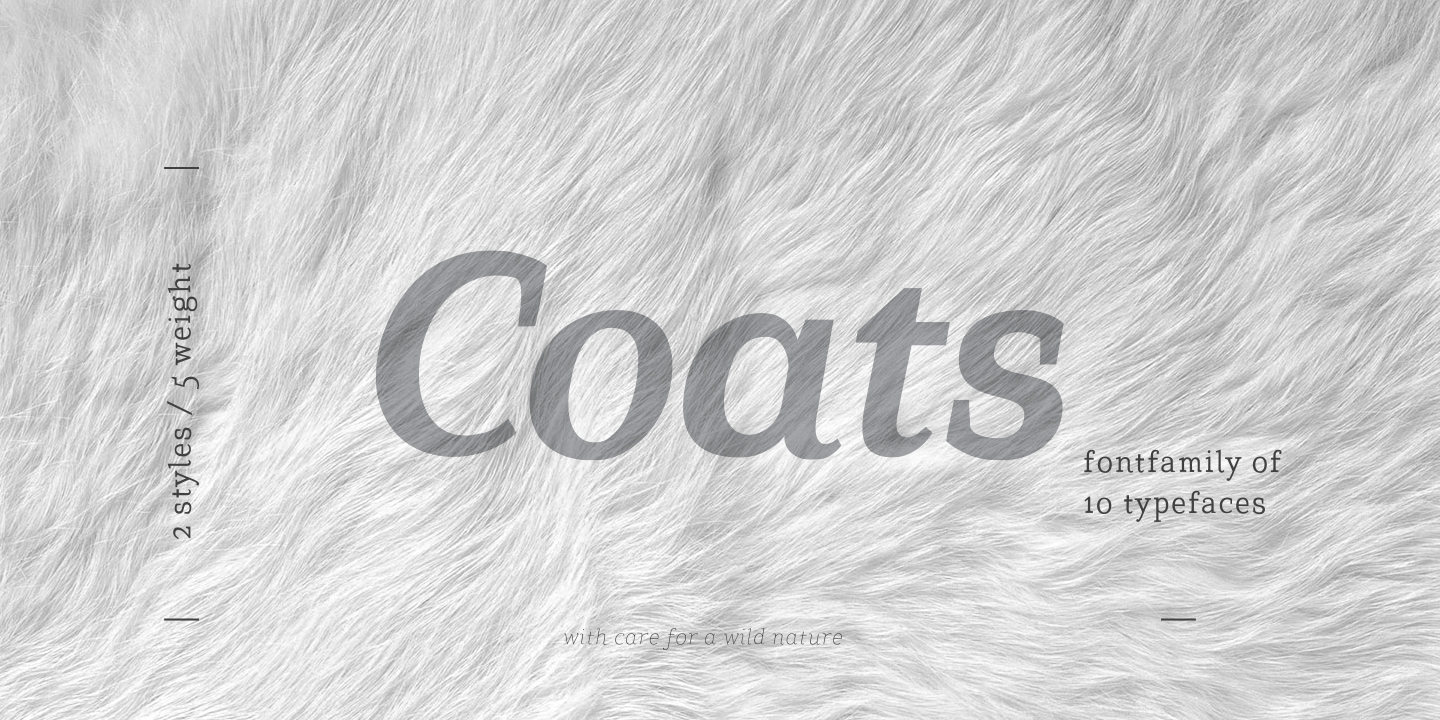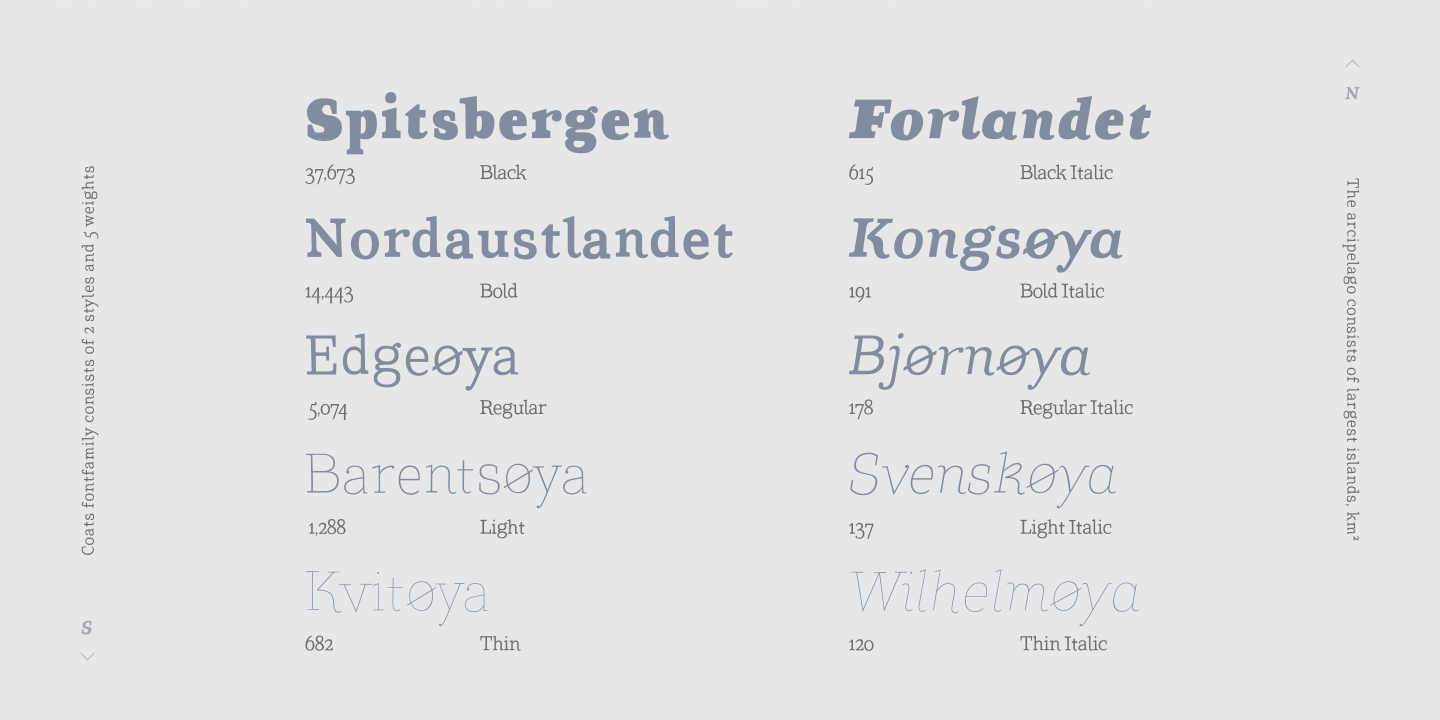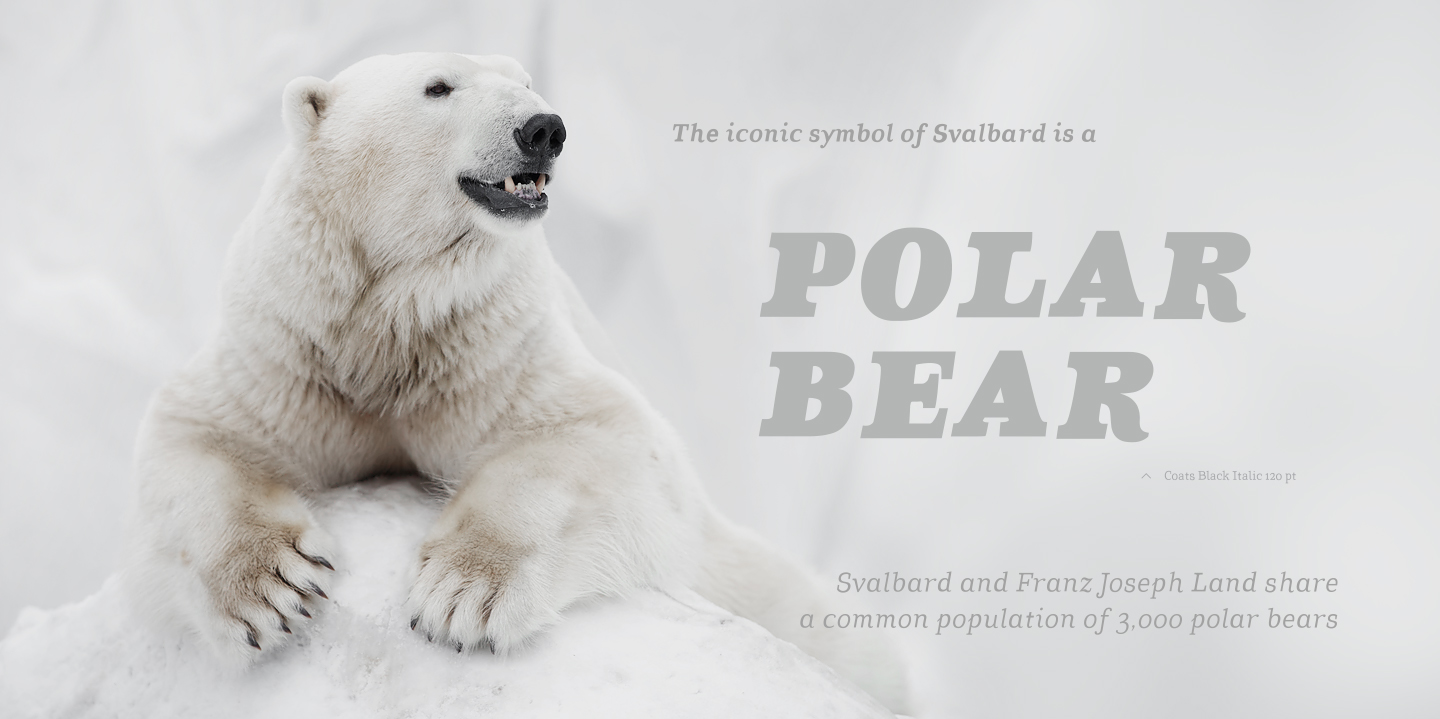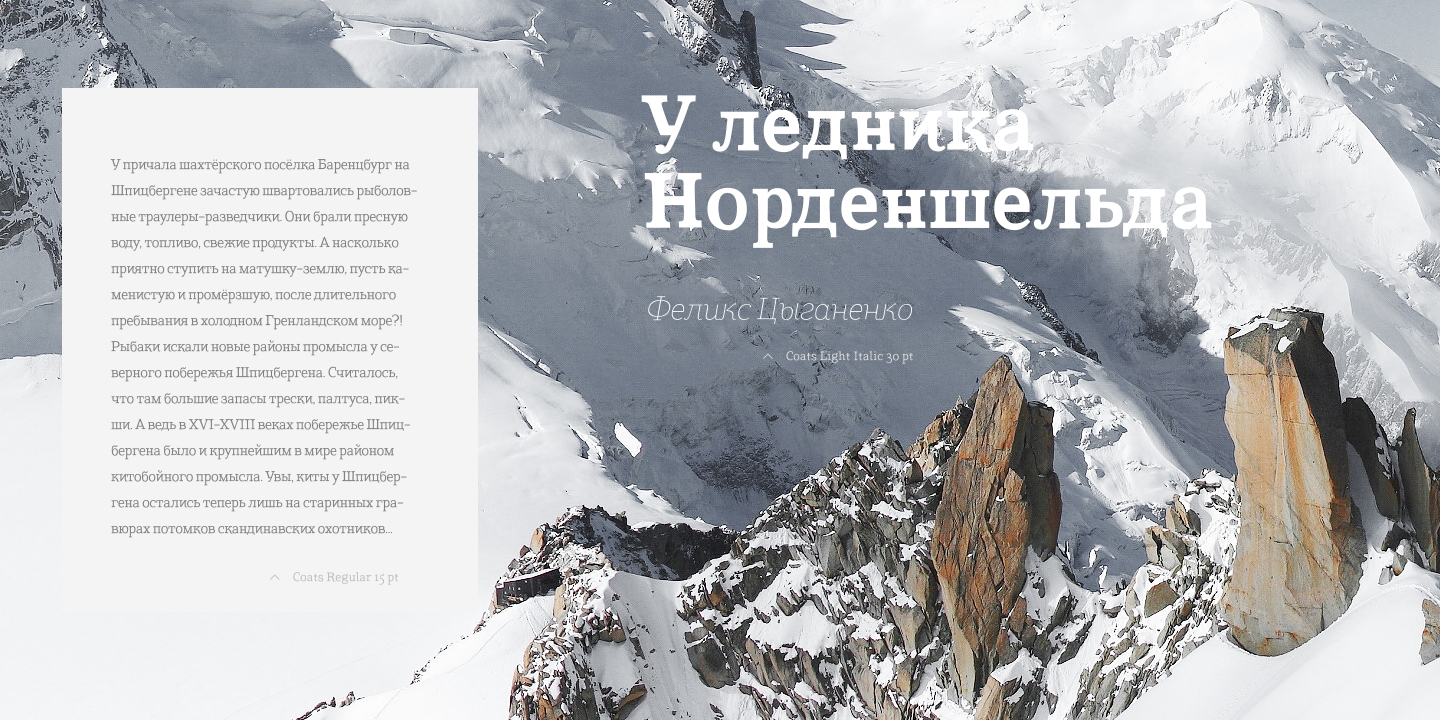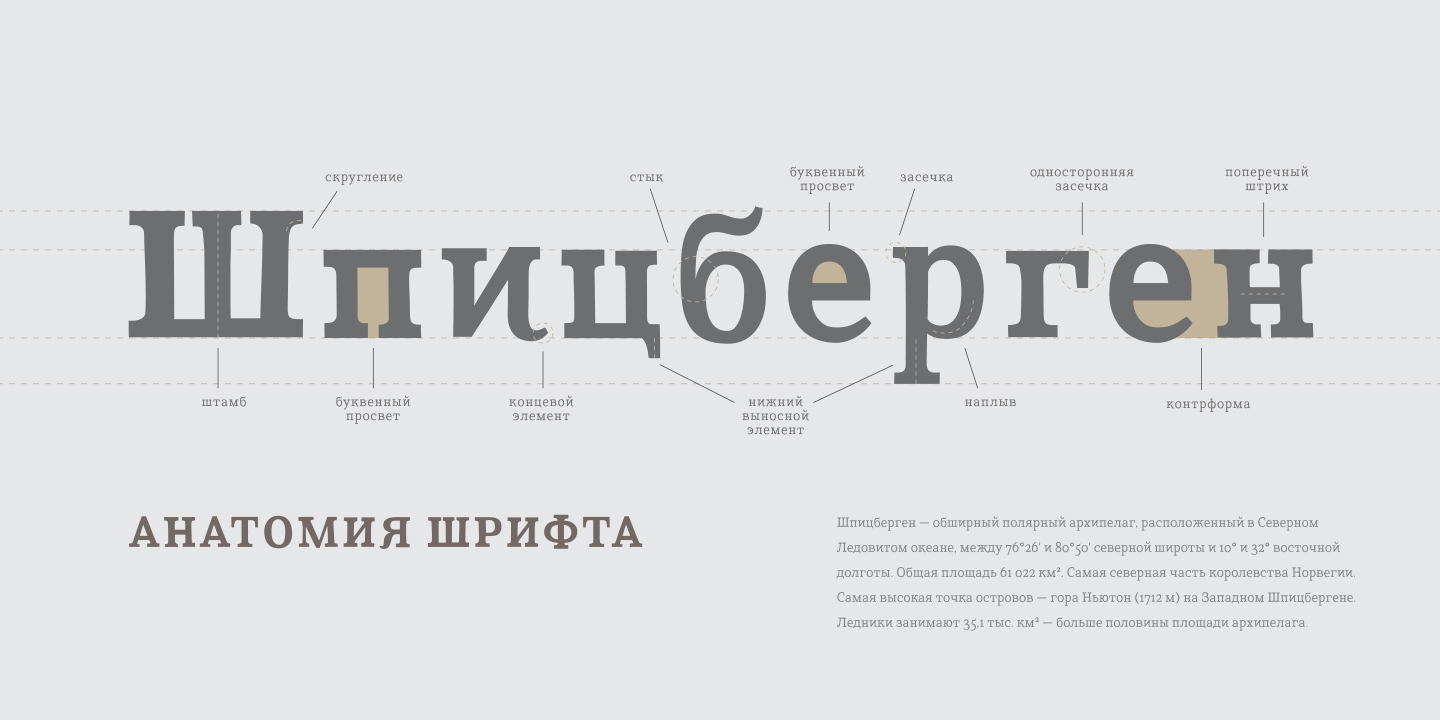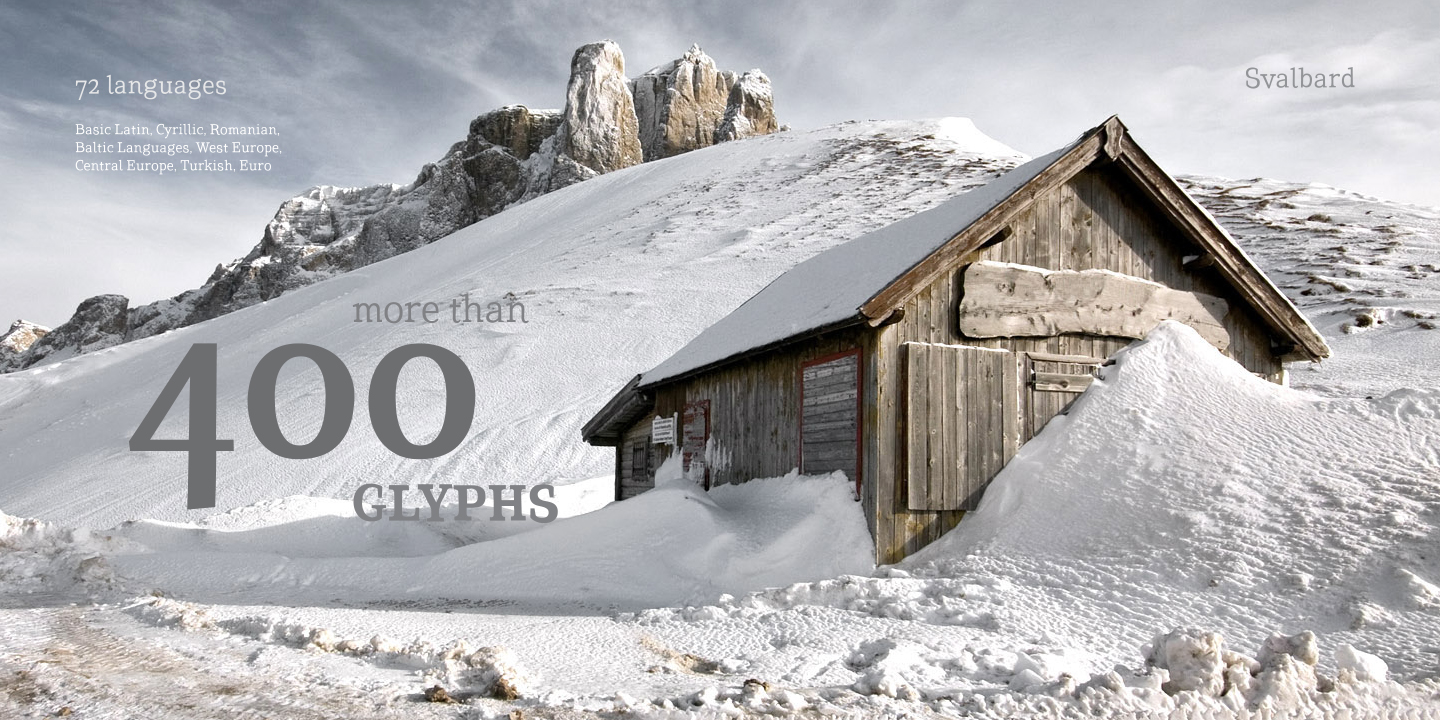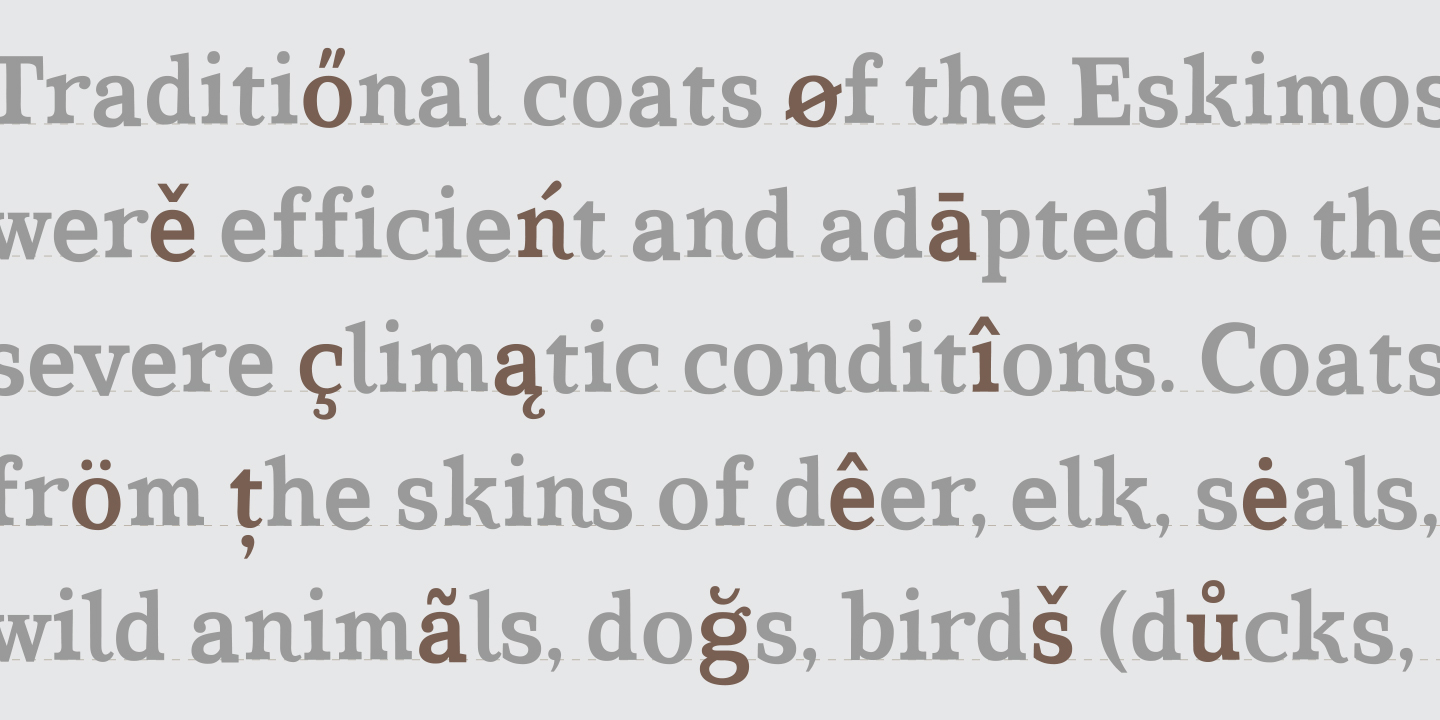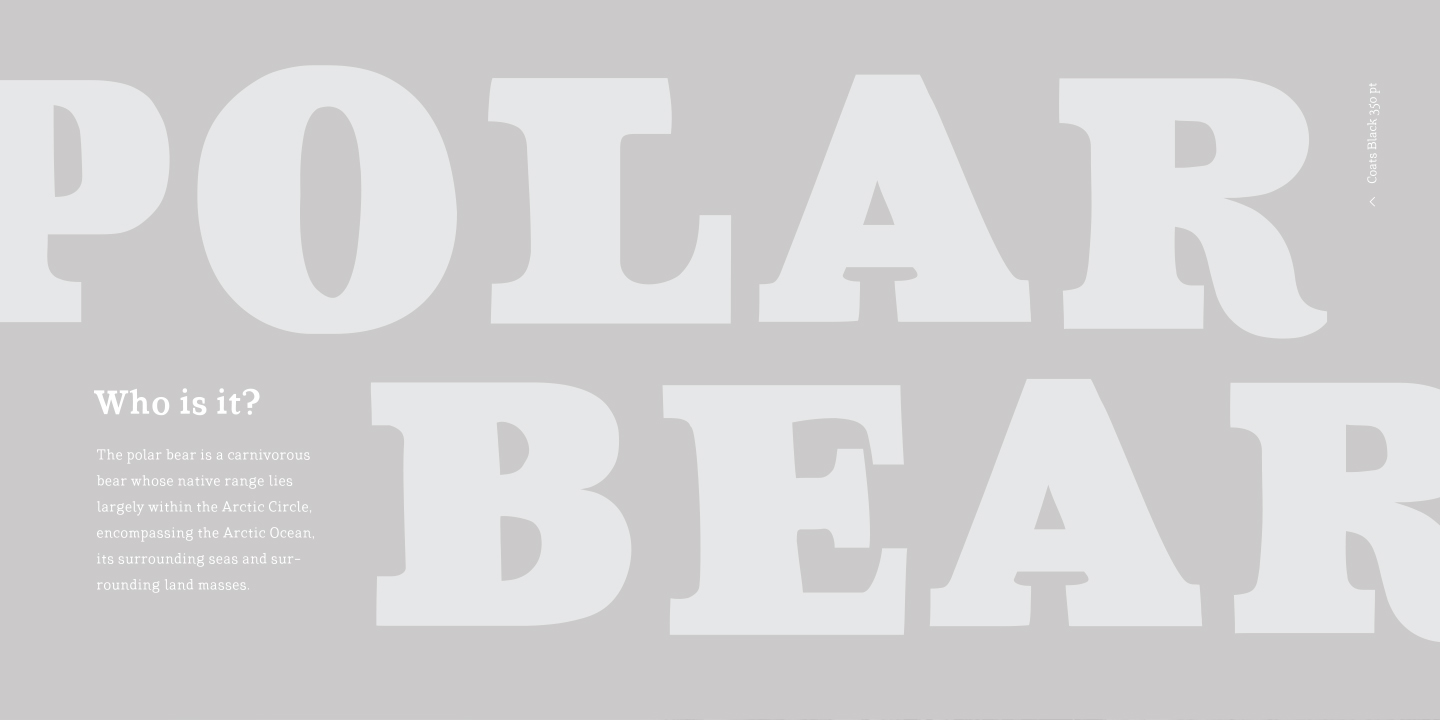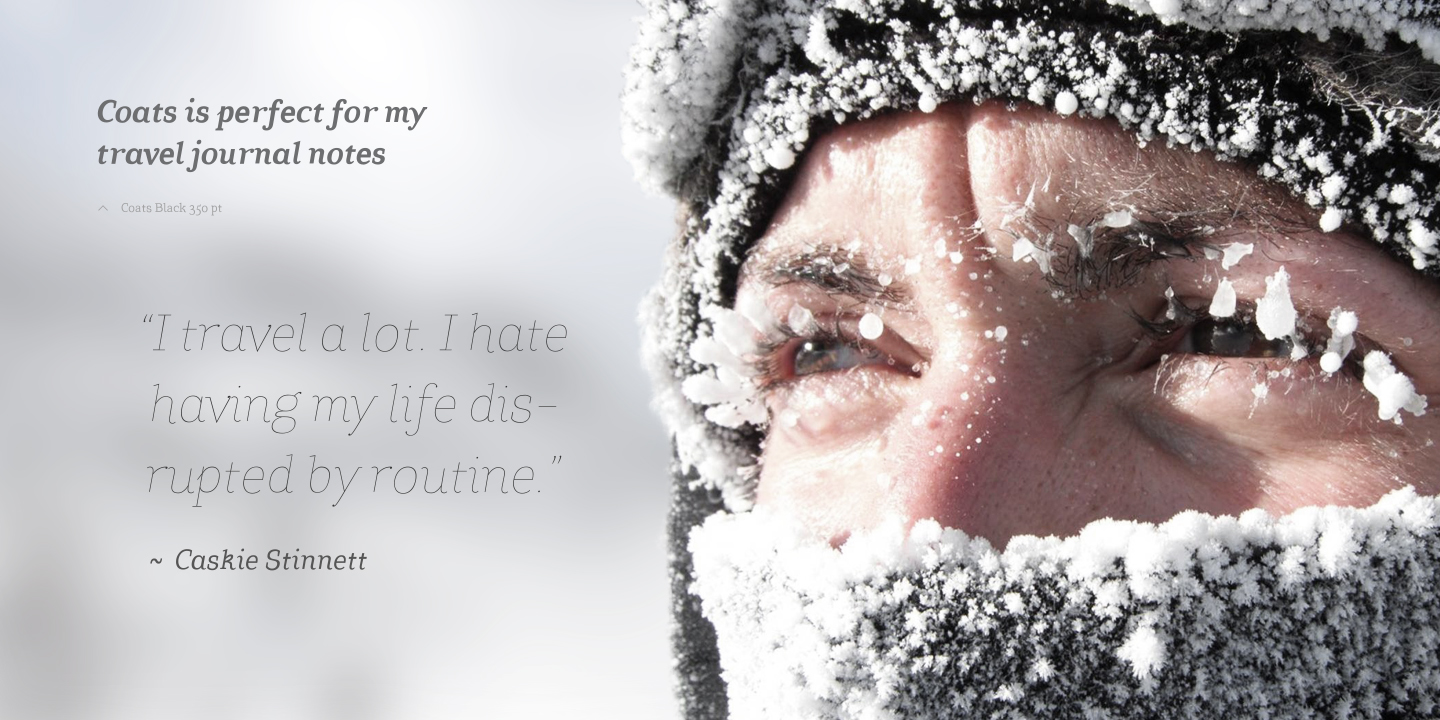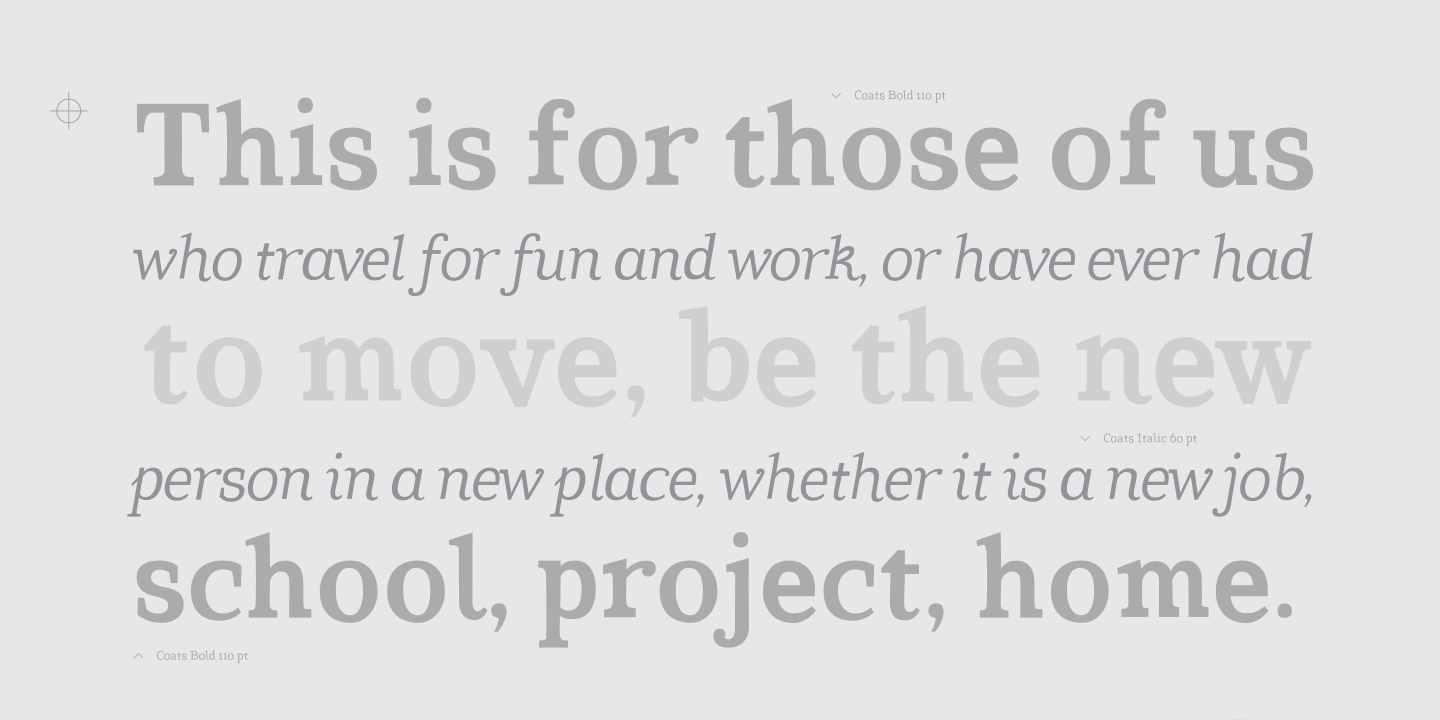
TT Coats Family (10 fonts)
Imagine: on a cold day, you've come from a refreshing frosty walk back home, and were rewarded with a cup of hot cocoa with marshmallows on top. We call this feeling the "coats effect". Add to your collection a unique fontfamily which works perfectly in the contemporary digital age.